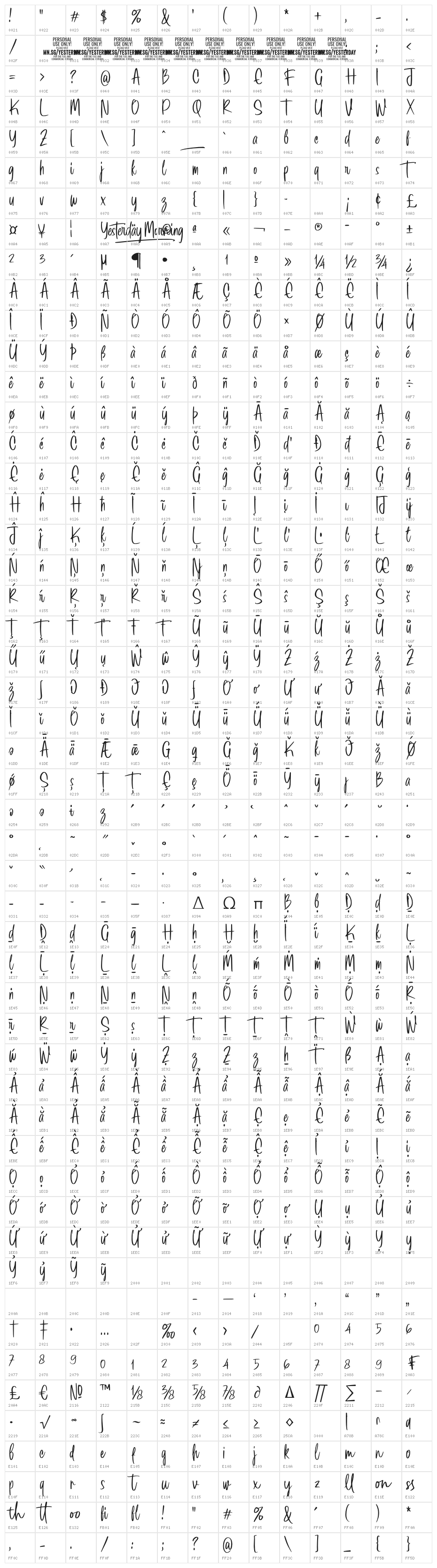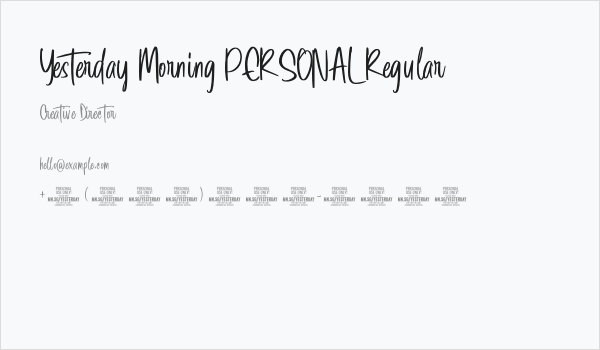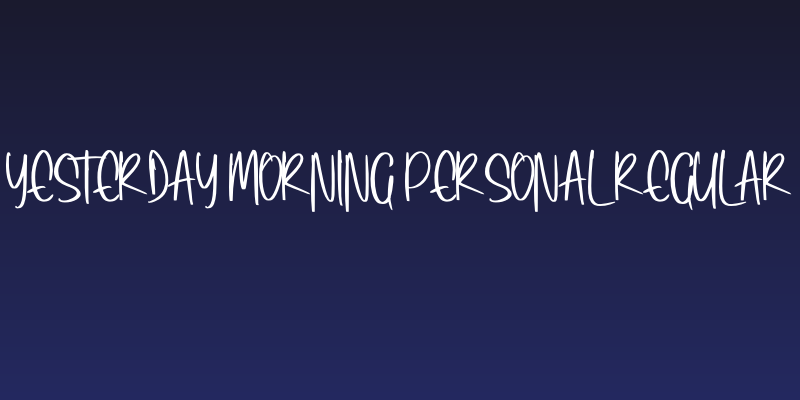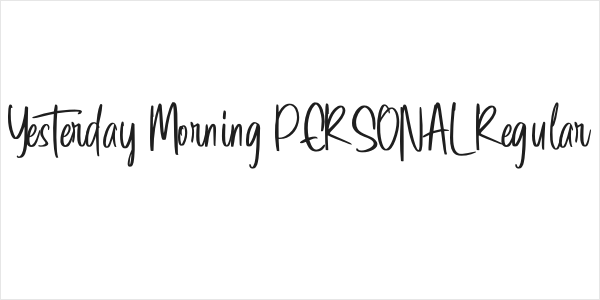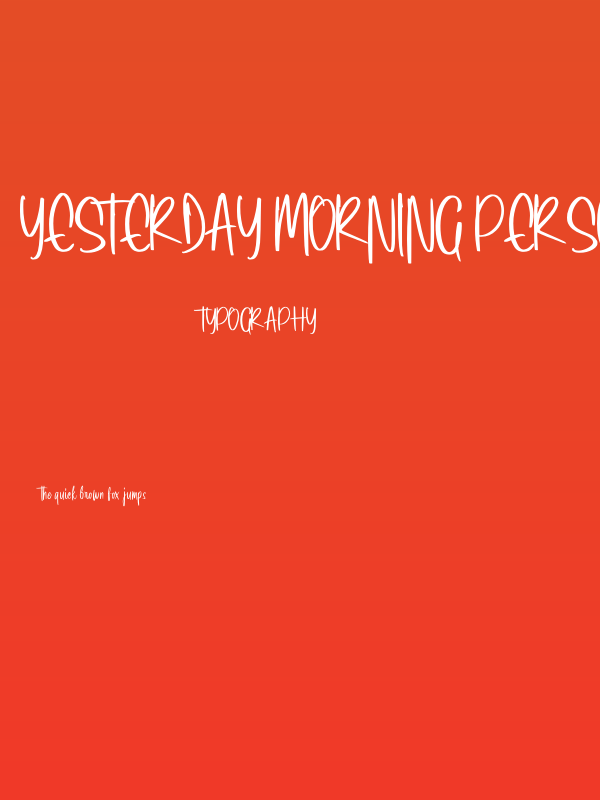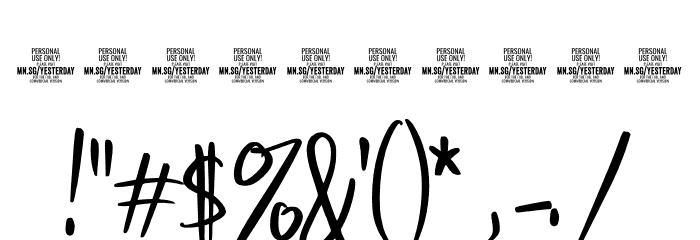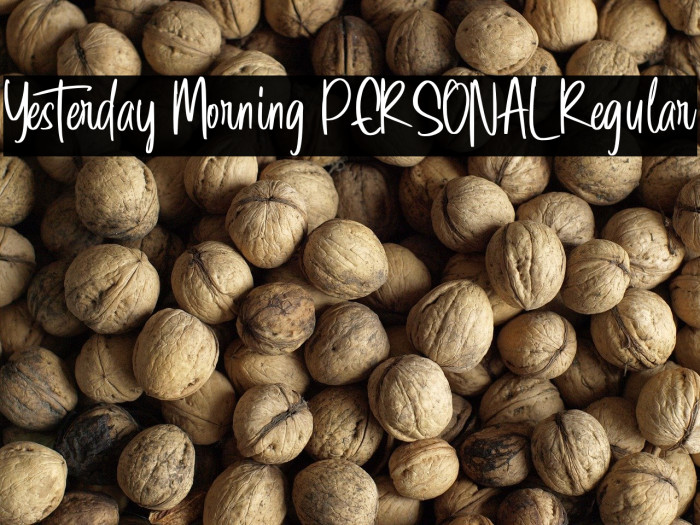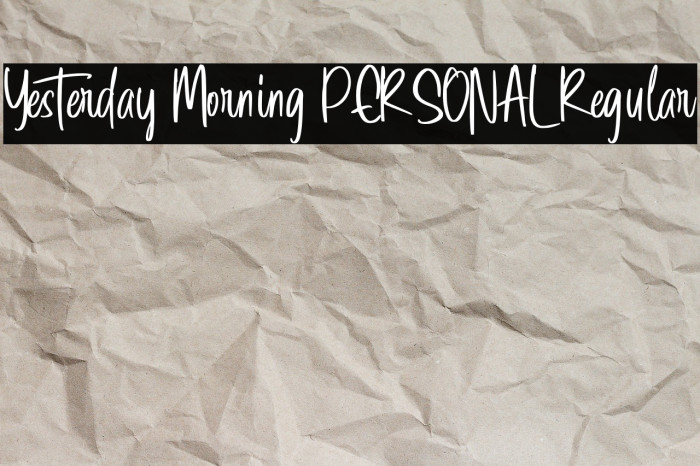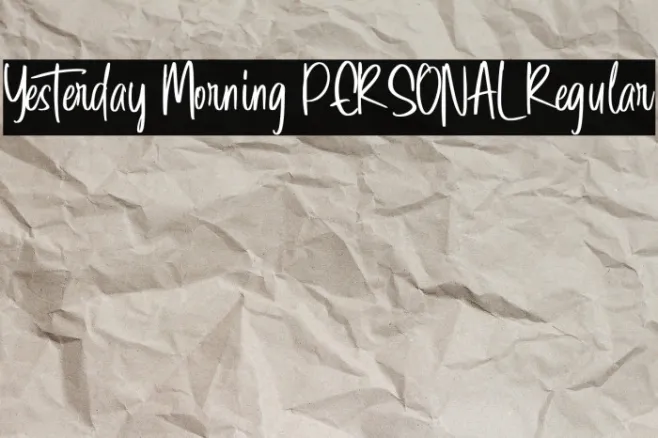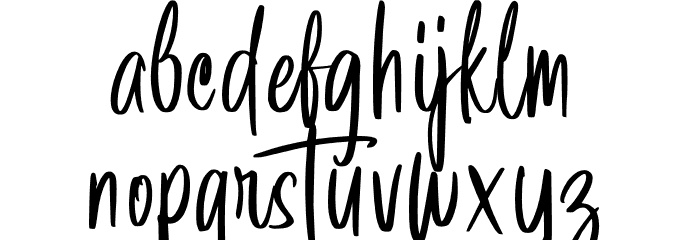
Yesterday Morning PERSONAL Regular Font
Yesterday Morning PERSONAL Regular Description
This font features a playful and energetic handwritten style, characterized by its tall, narrow letters with a slight slant. The uppercase letters are bold and dynamic, while the lowercase letters maintain a consistent flow with unique, elongated strokes. The numbers and special characters complement the overall style with their quirky and artistic flair. The font's casual and informal appearance makes it ideal for projects that require a personal touch or a creative, youthful vibe.
| Width | Condensed |
| Overall Style | Casual, Artistic |
| Use Case | Logos, Headlines, Informal Invitations |
| Proposed Projects | Ideal for greeting cards, posters, social media graphics, and personal branding projects. |